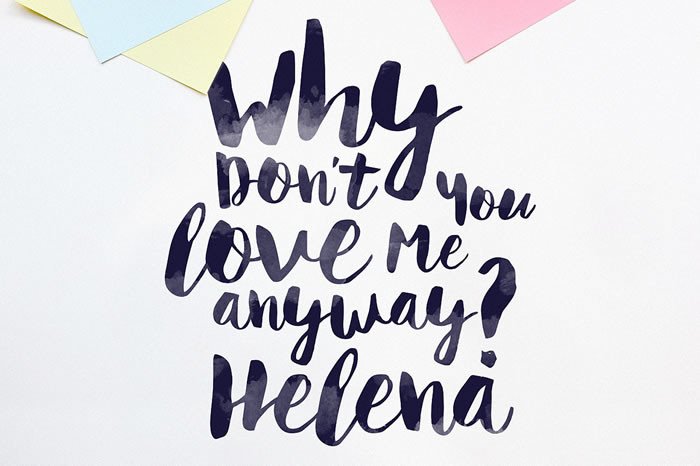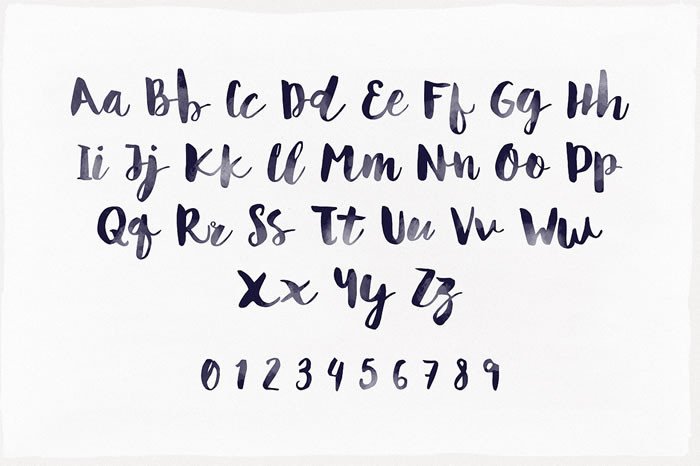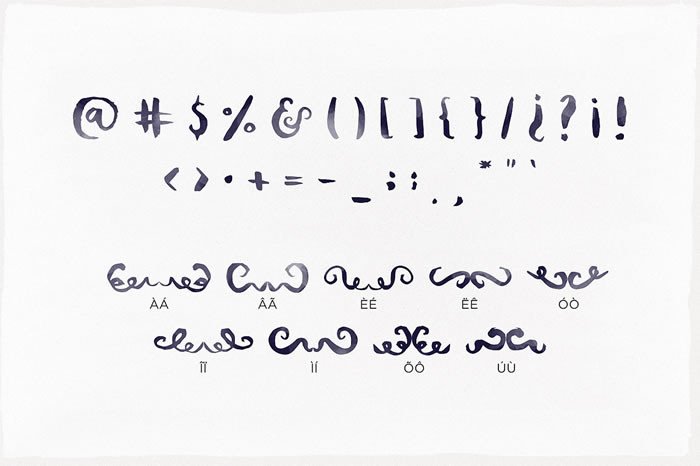
Helena Font
About Helena Font
Helena is a handmade font which will give your design an authentic handcrafted feeling. Helena is perfectly suited for logo’s, wedding invites and envelopes, posters and much more!